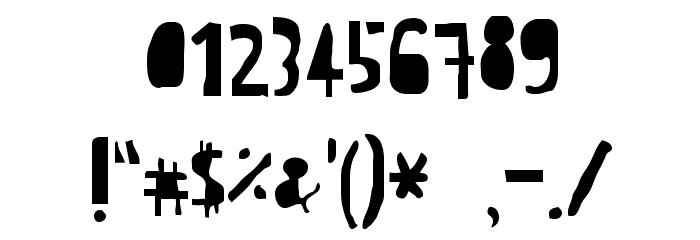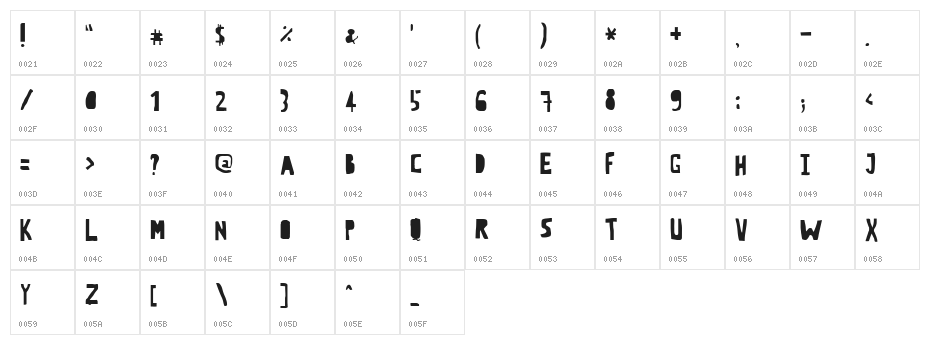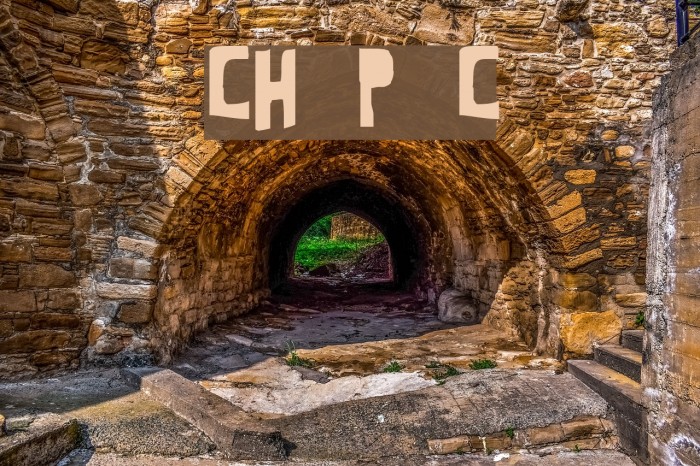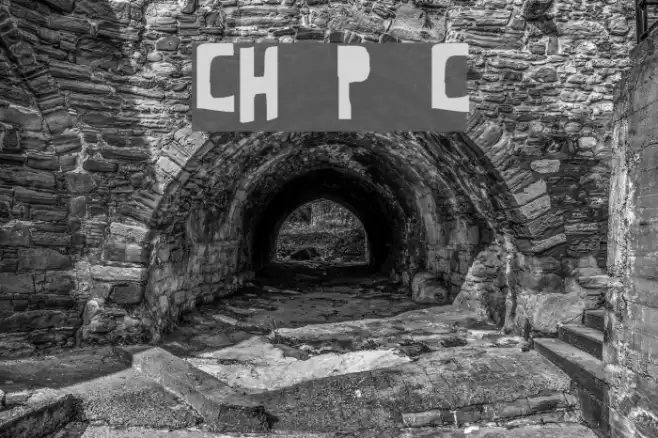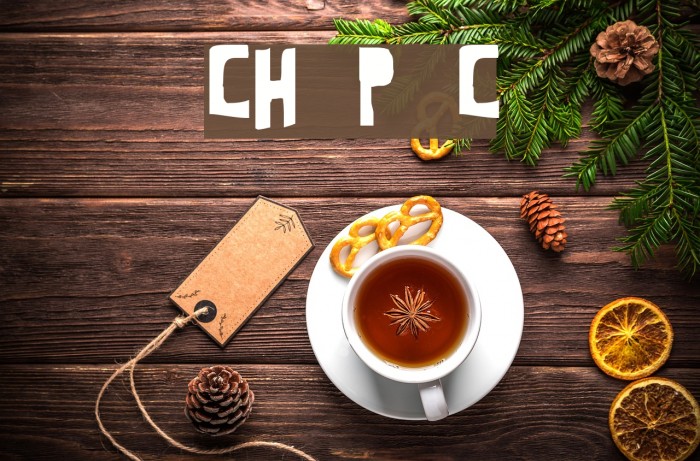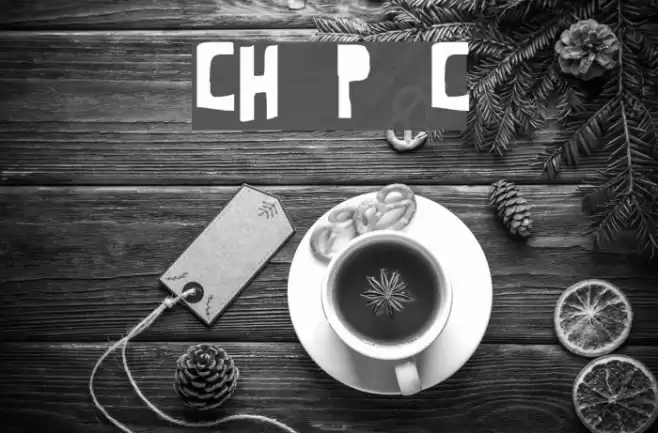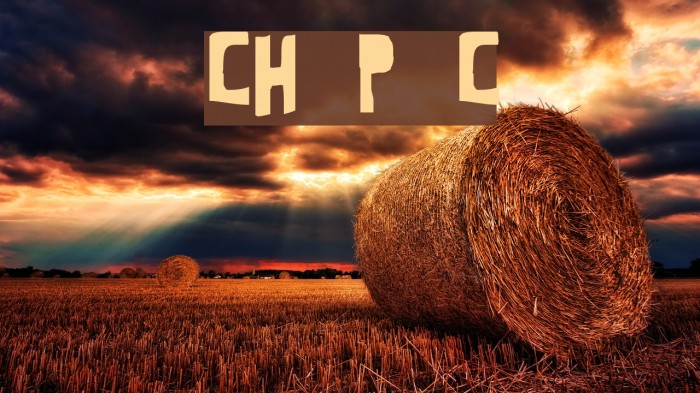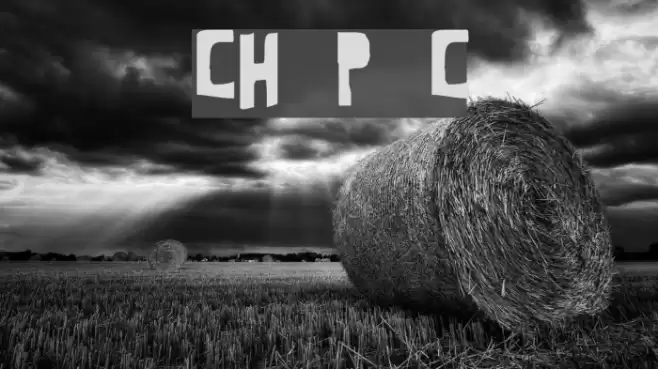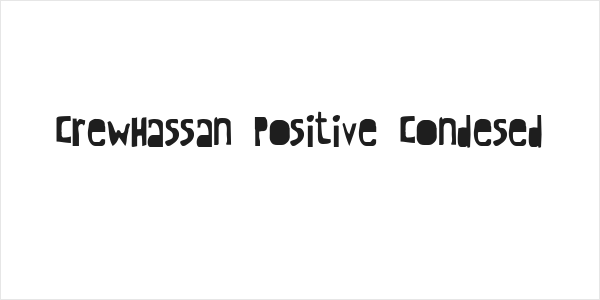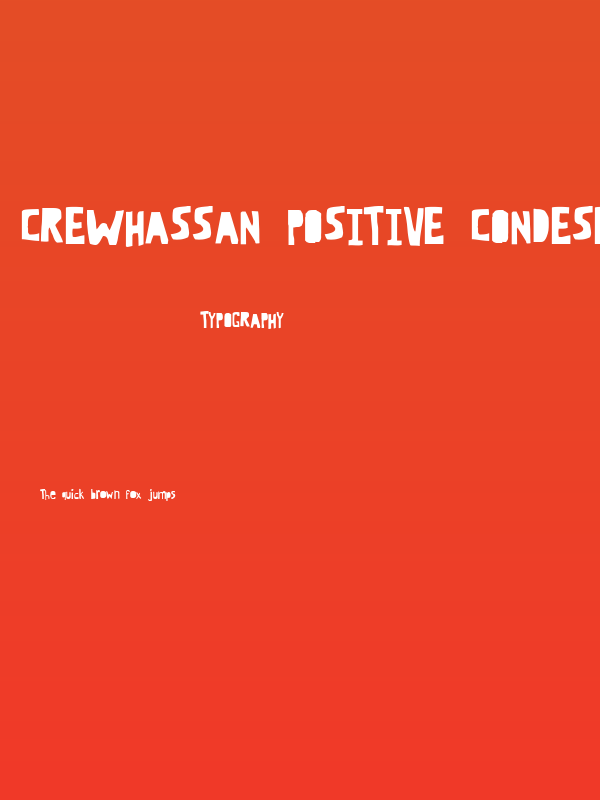
CrewHassan Positive Condesed Font
CrewHassan Positive Condesed Description
This font features a bold and condensed style with a unique, handcrafted appearance. The uppercase letters are robust and slightly irregular, giving a playful yet strong impression. The lowercase letters maintain a similar aesthetic, with some characters exhibiting a more whimsical design. The numbers are consistent with the overall style, offering a cohesive look. Special characters are creatively designed, adding to the font's distinctive personality. This font's uneven edges and bold strokes make it stand out, ideal for projects that require a touch of creativity and boldness.